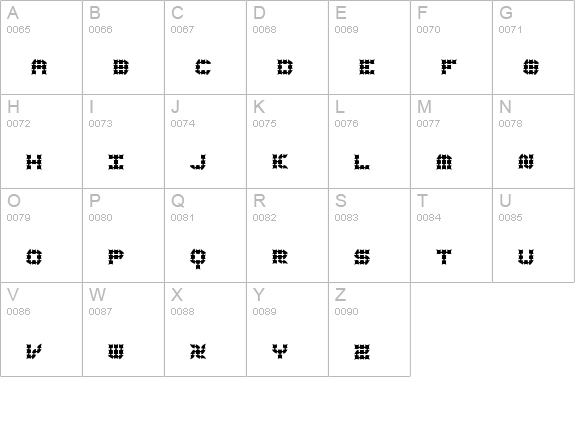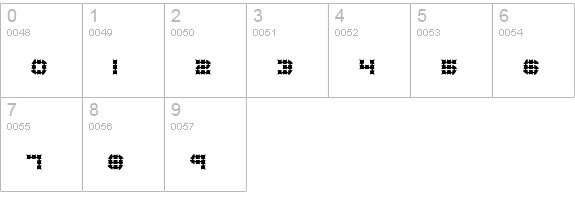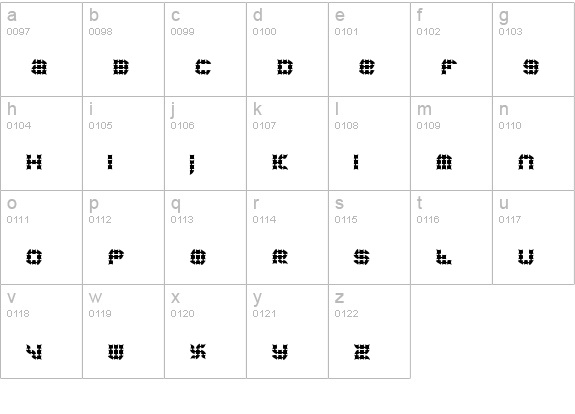
Konector Eerie -BRK- font is a hauntingly beautiful typeface that exudes an air of mystery and intrigue. Its unique design features intricate and twisted letterforms that give it a chilling yet captivating appearance. Perfect for adding a touch of spookiness to your designs, this font is sure to leave a lasting impression on your audience. What's even better is that Konector Eerie -BRK- font is completely free to download at FontsMarket.com. So you can easily add this eerie and alluring font to your collection without breaking the bank. Don't miss out on this fantastic opportunity to enhance your projects with this one-of-a-kind typeface. Download Konector Eerie -BRK- font today and let your creativity run wild!